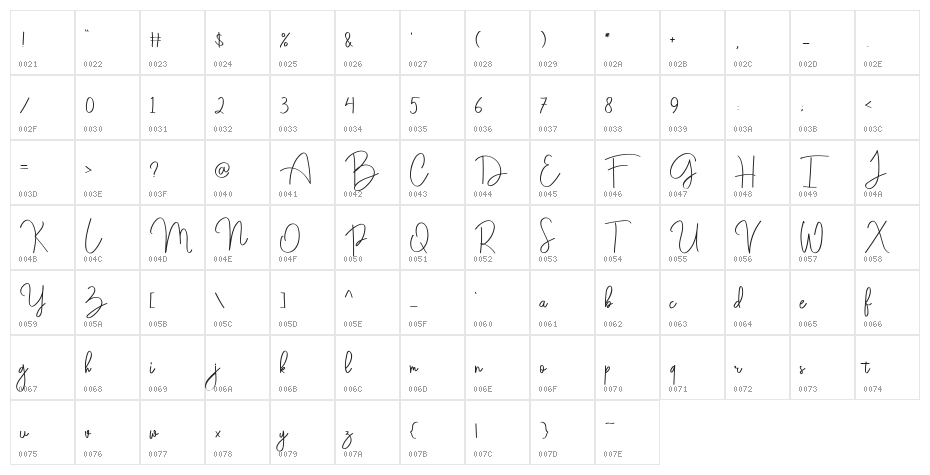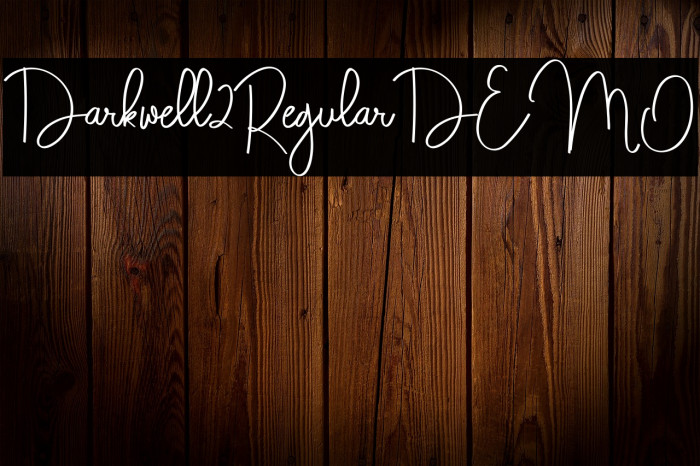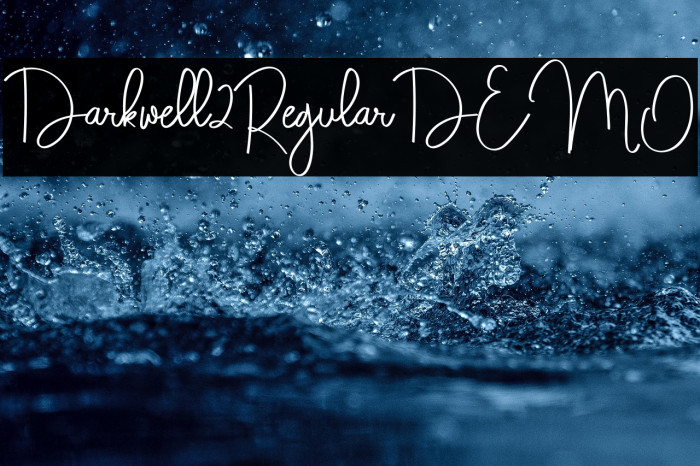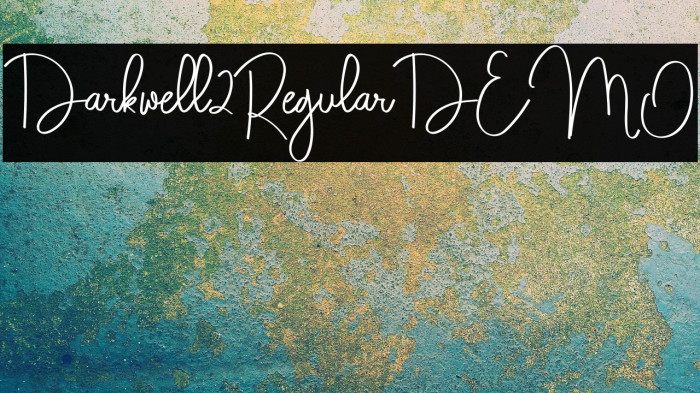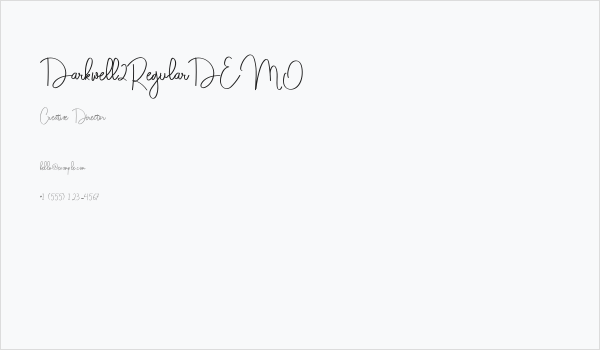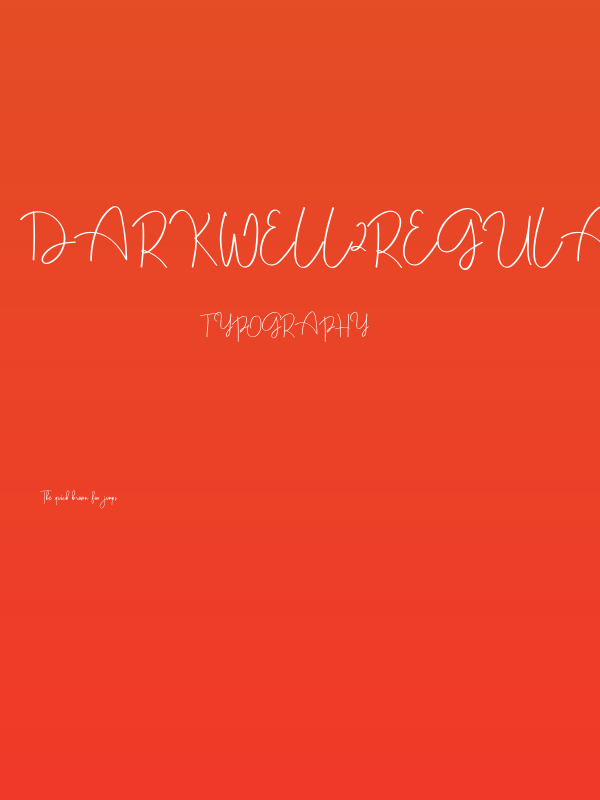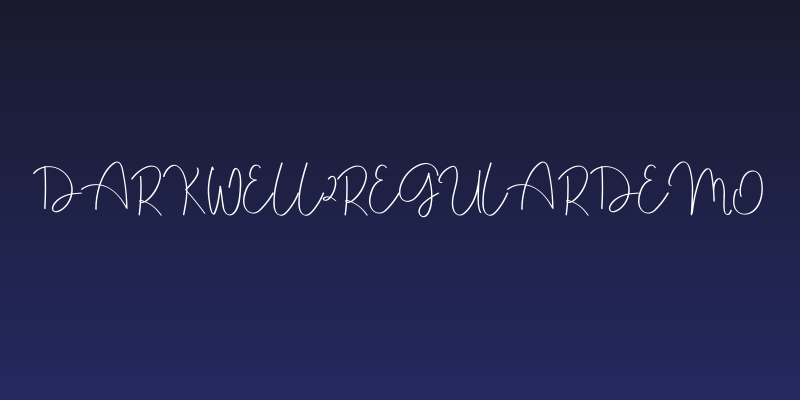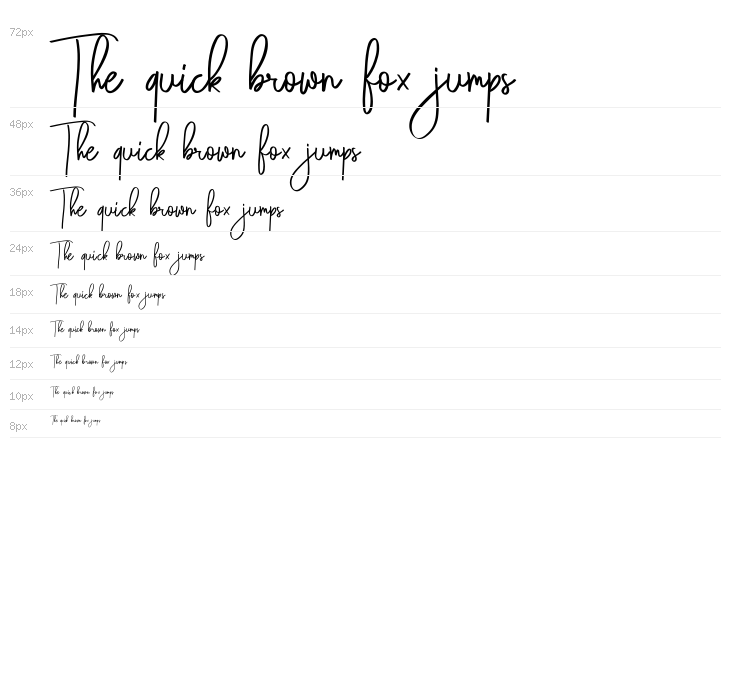
Darkwell2RegularDEMO Font
Darkwell2RegularDEMO Description
A decorative handwritten font with a playful and elegant style, featuring flowing curves and varying stroke widths.
| Proposed Projects | Invitations, greeting cards, personal branding. |